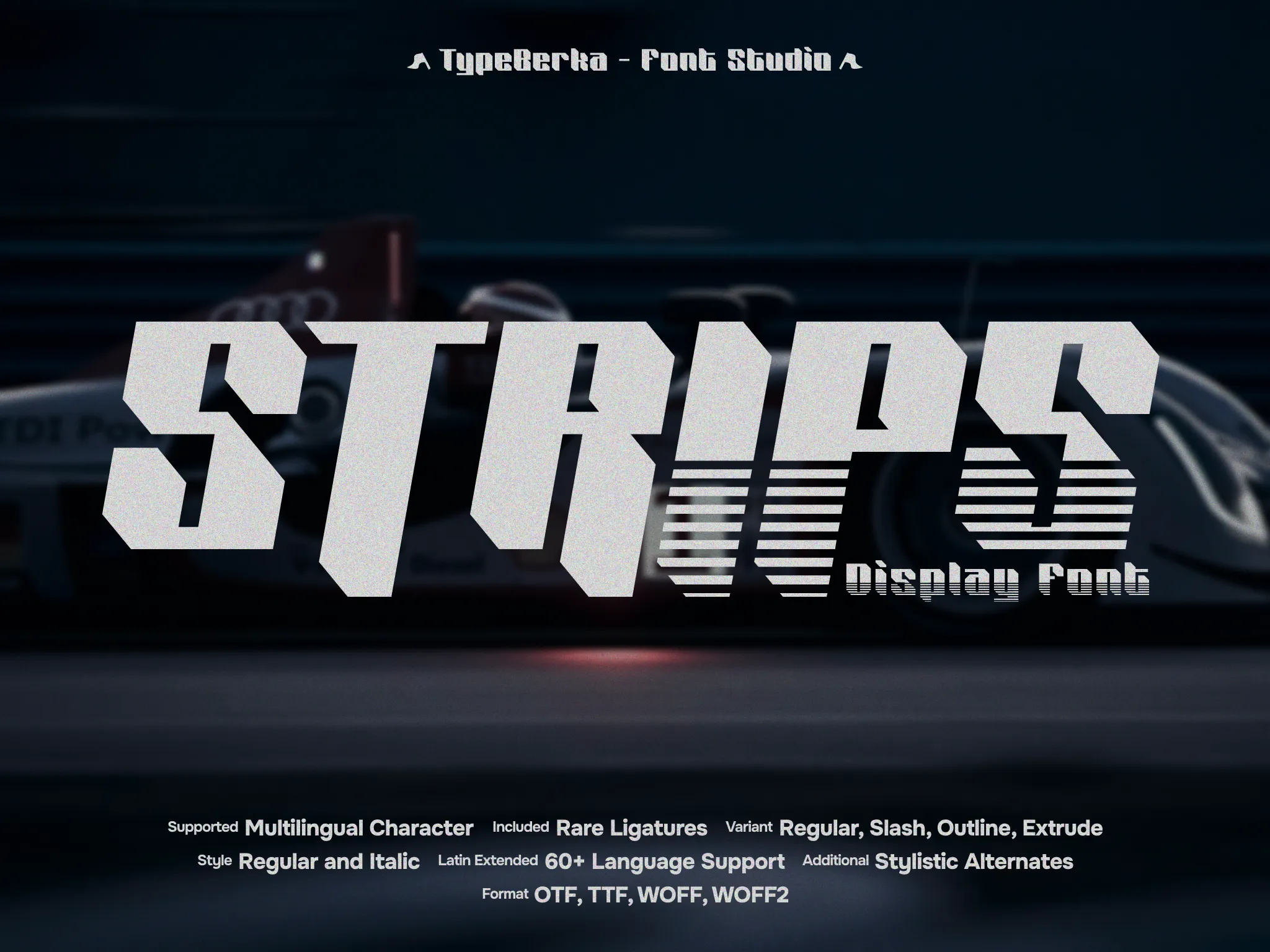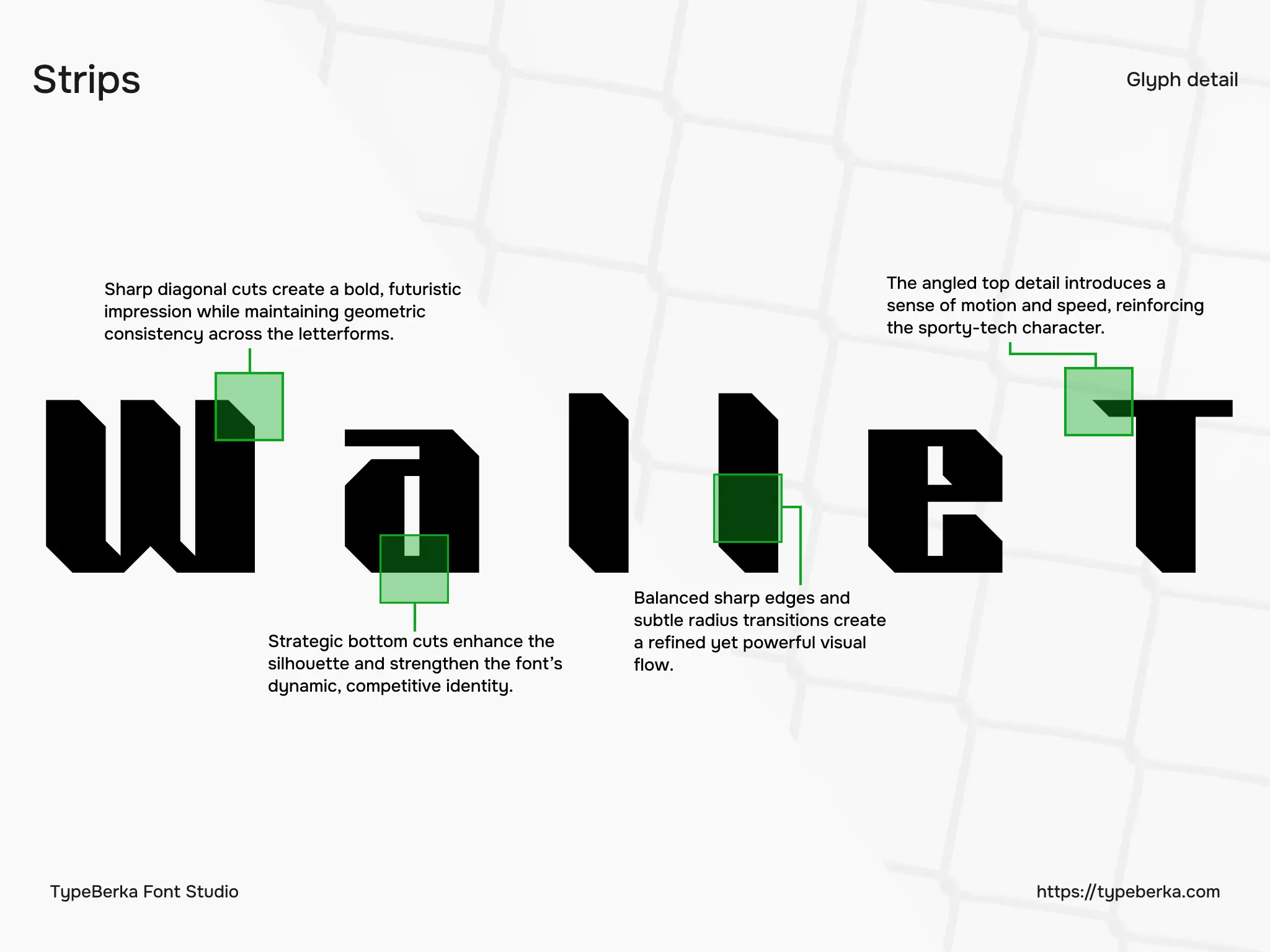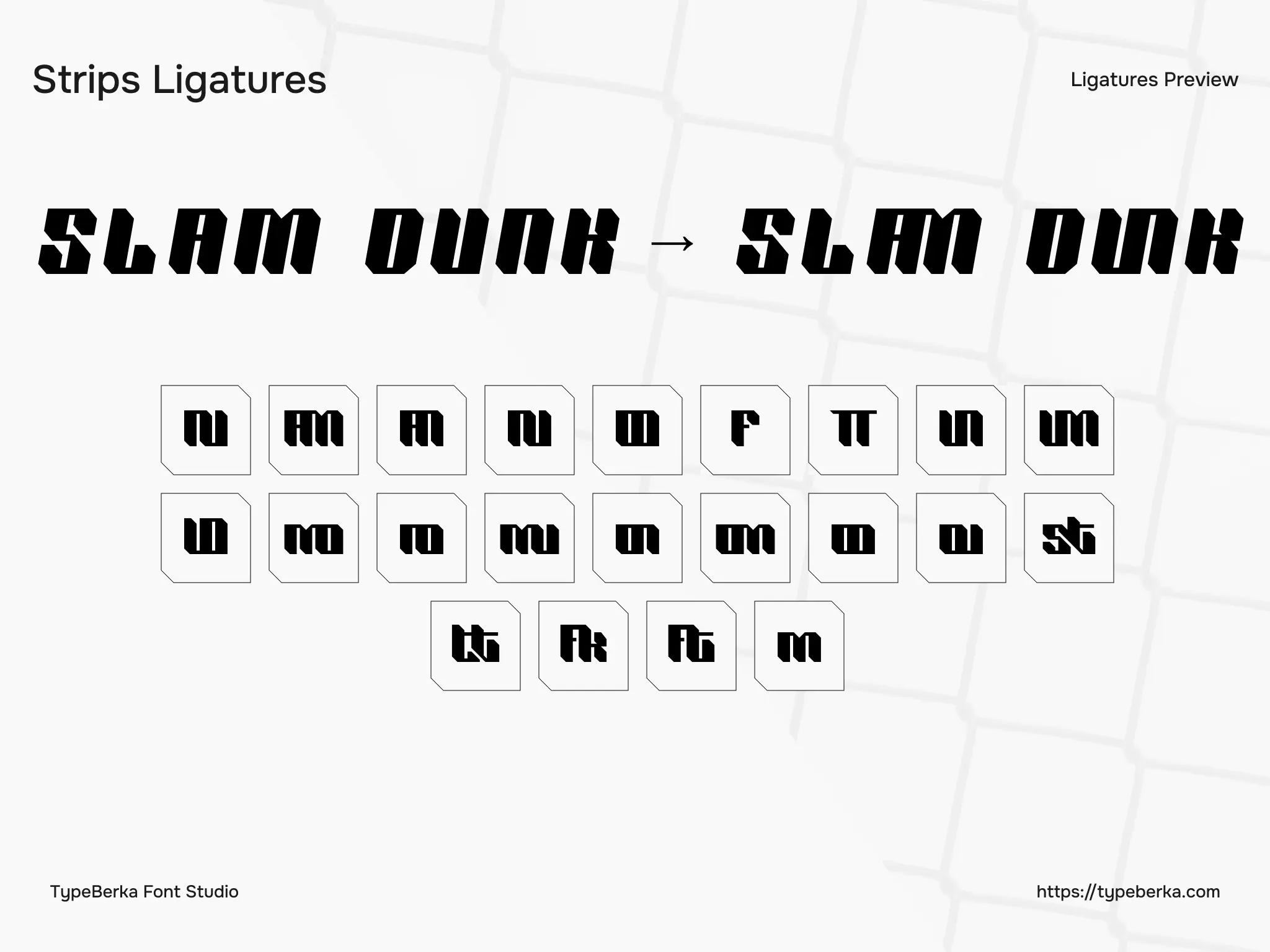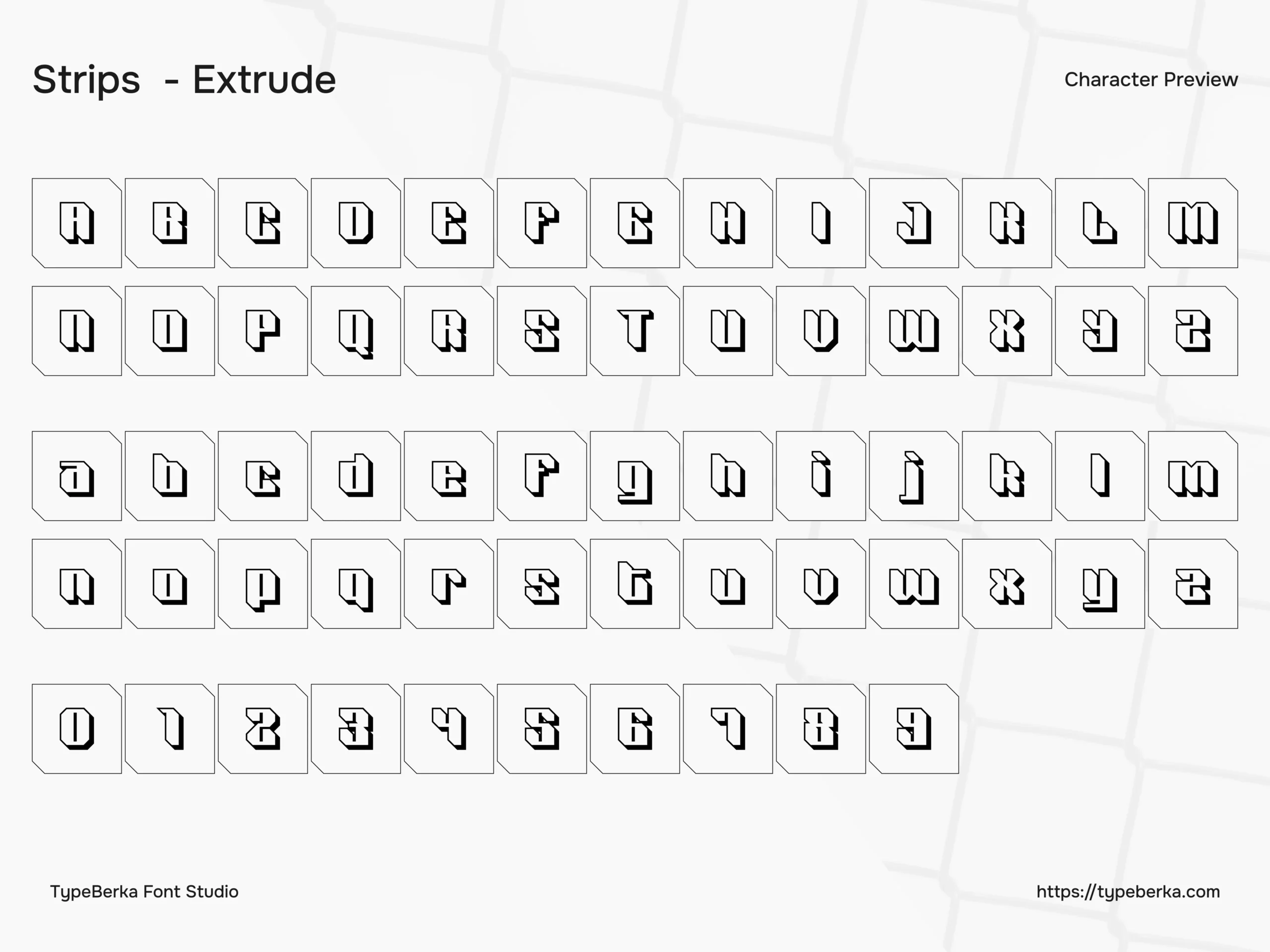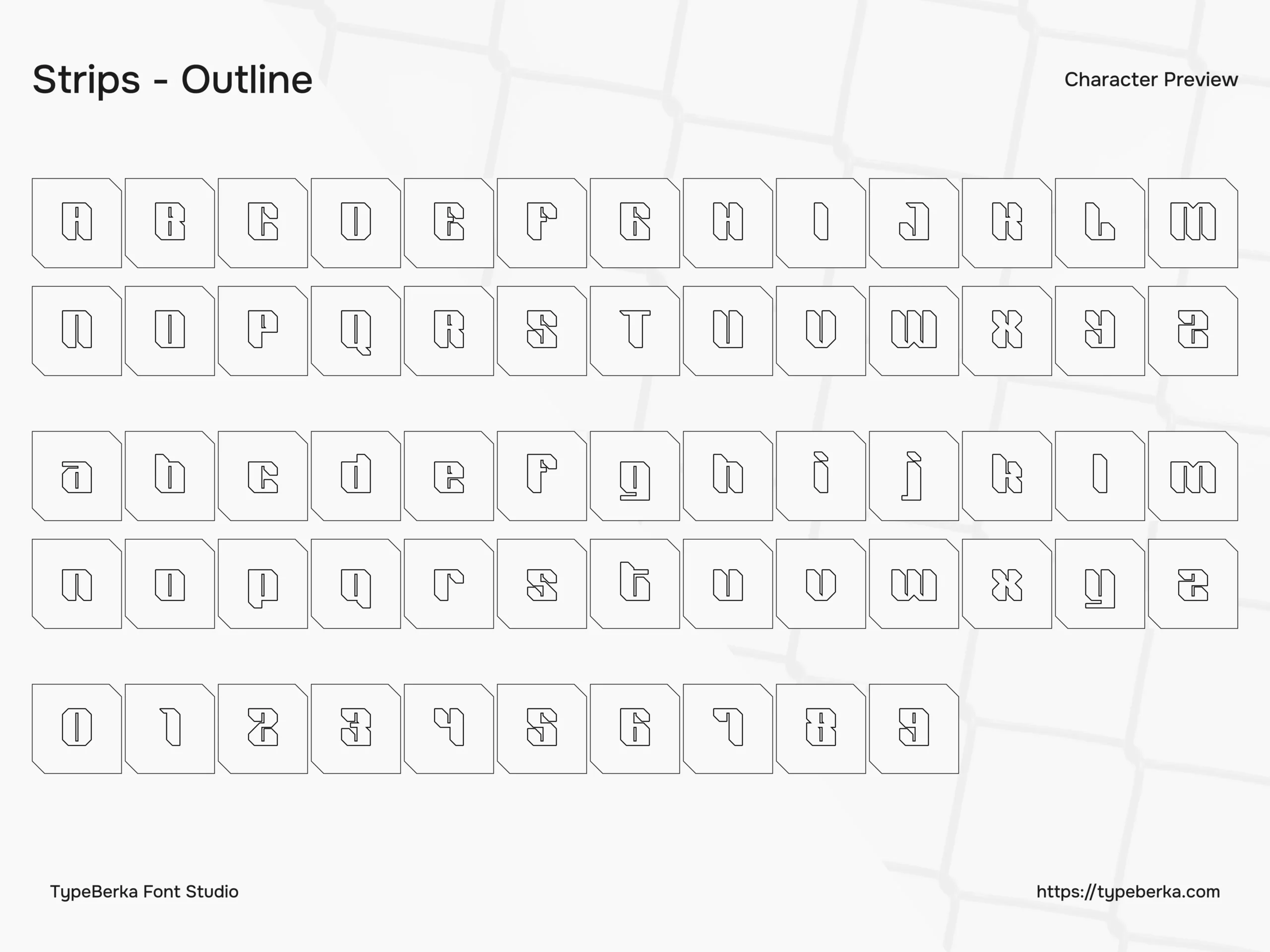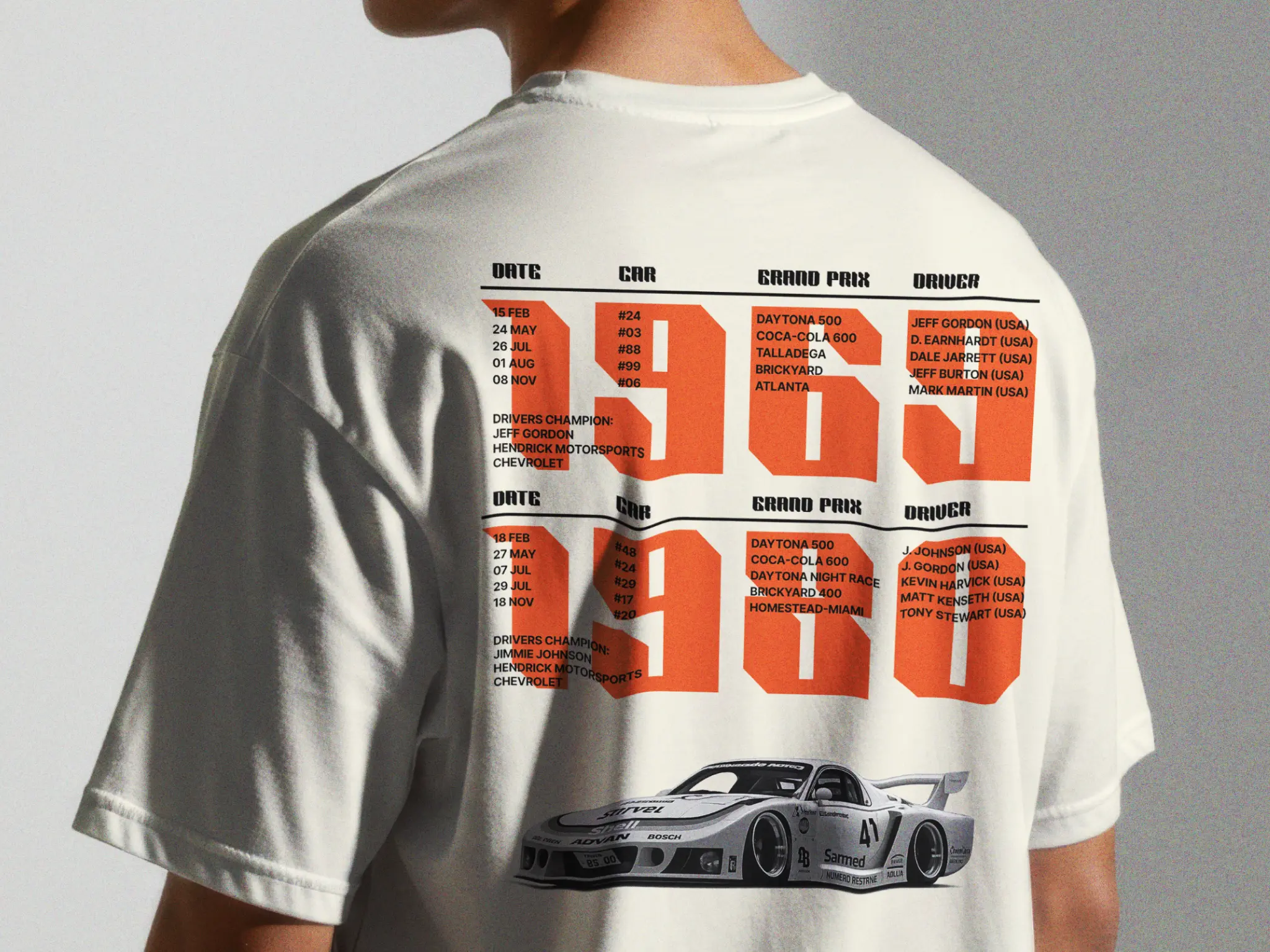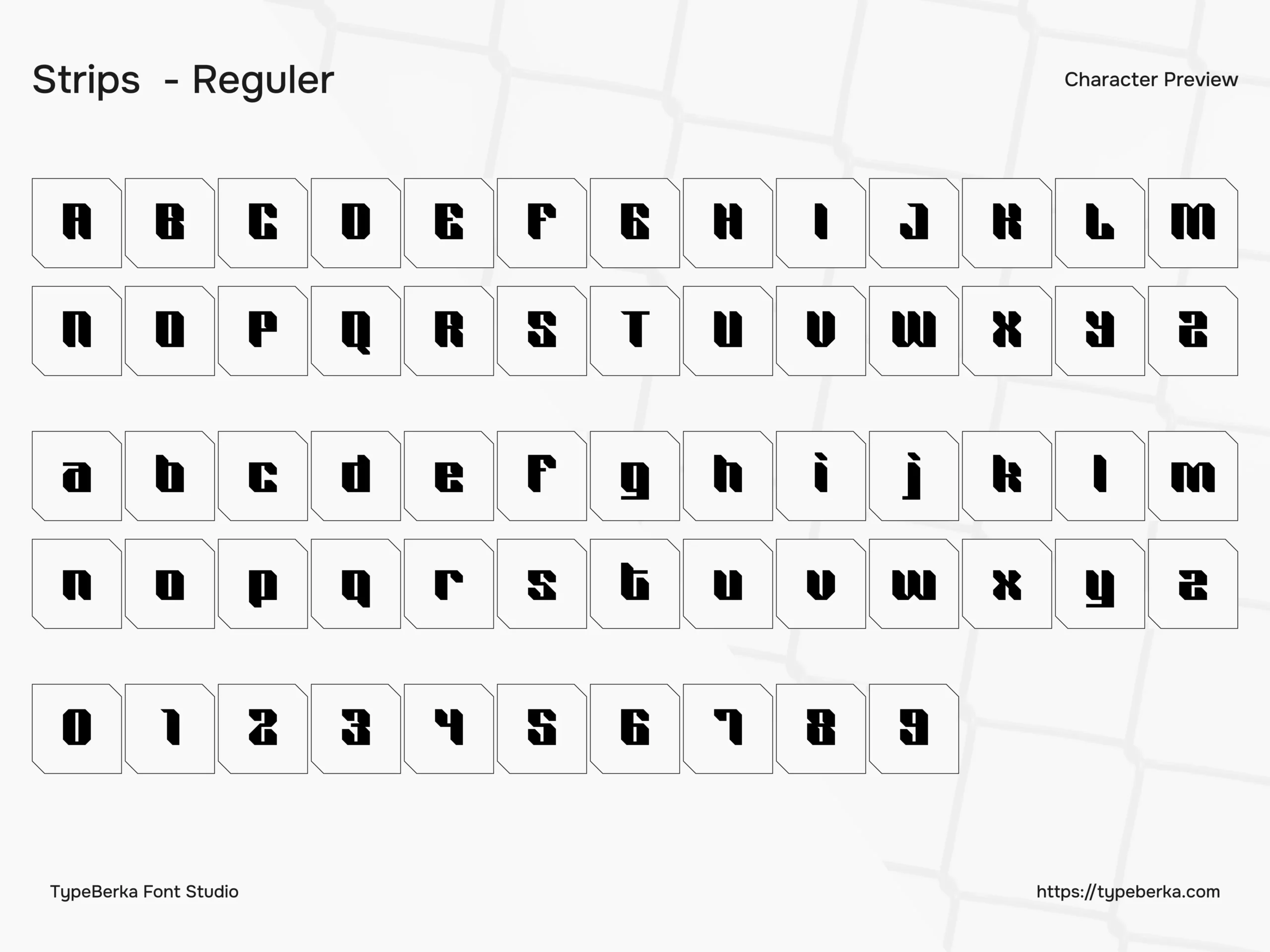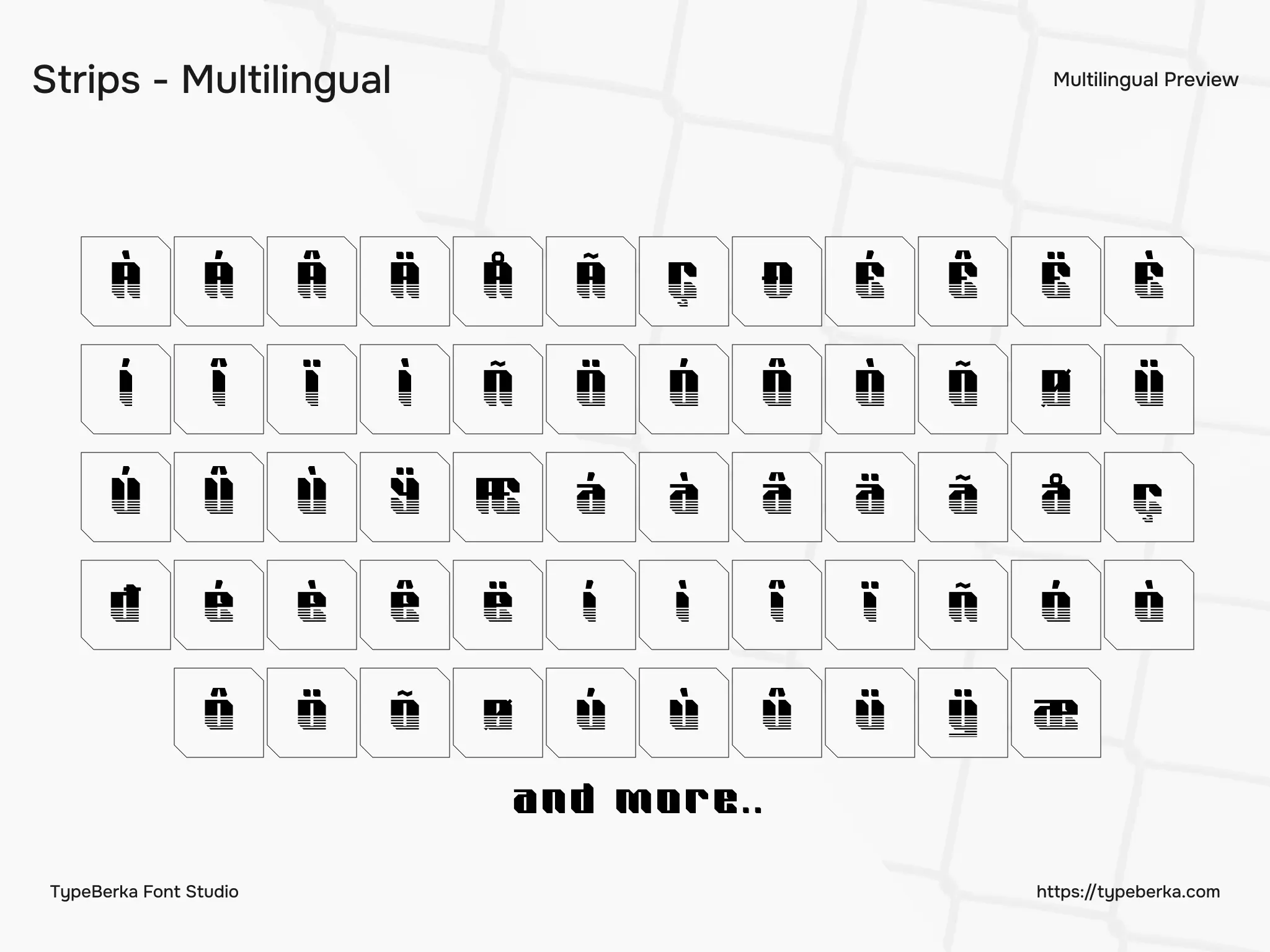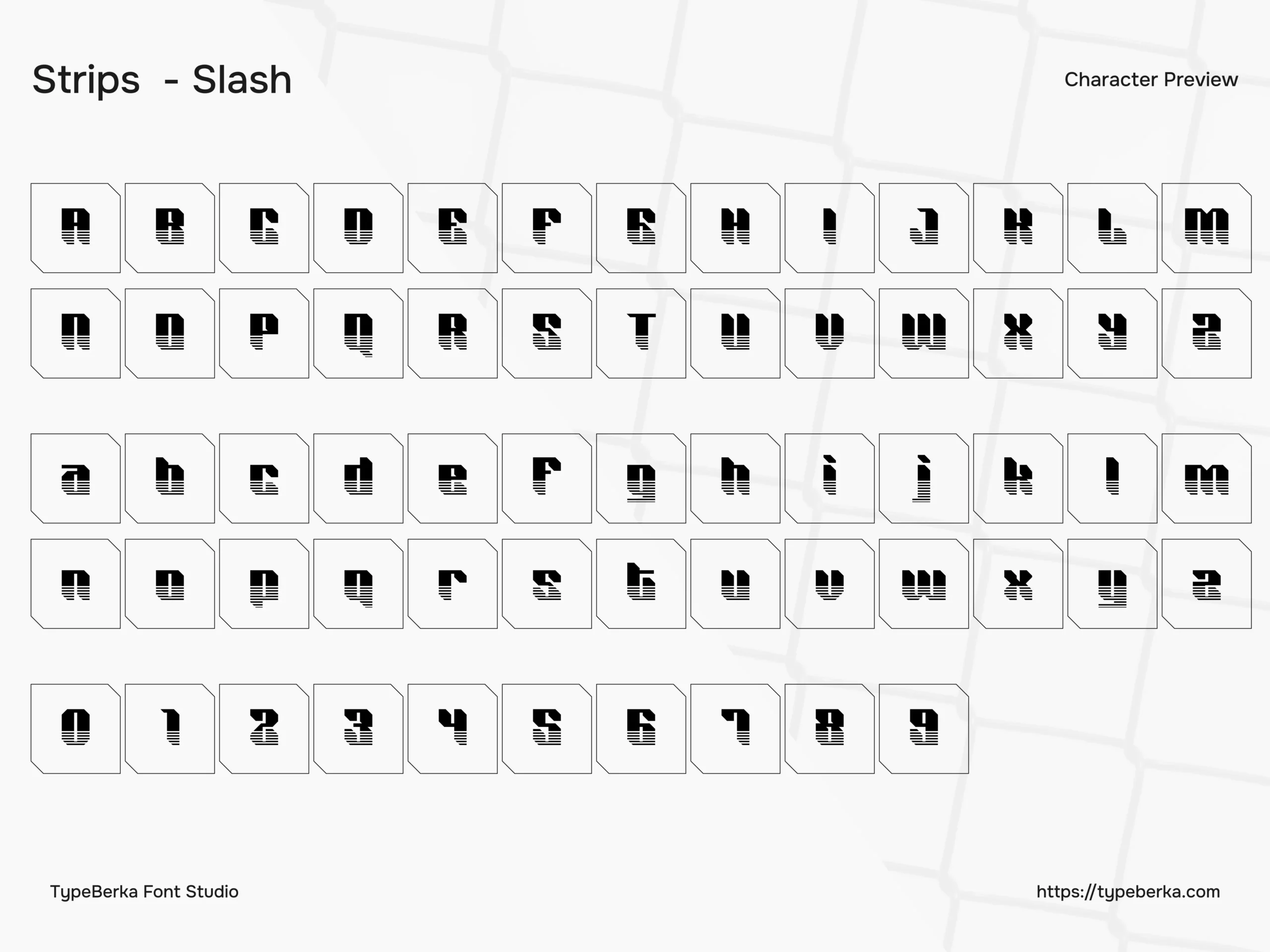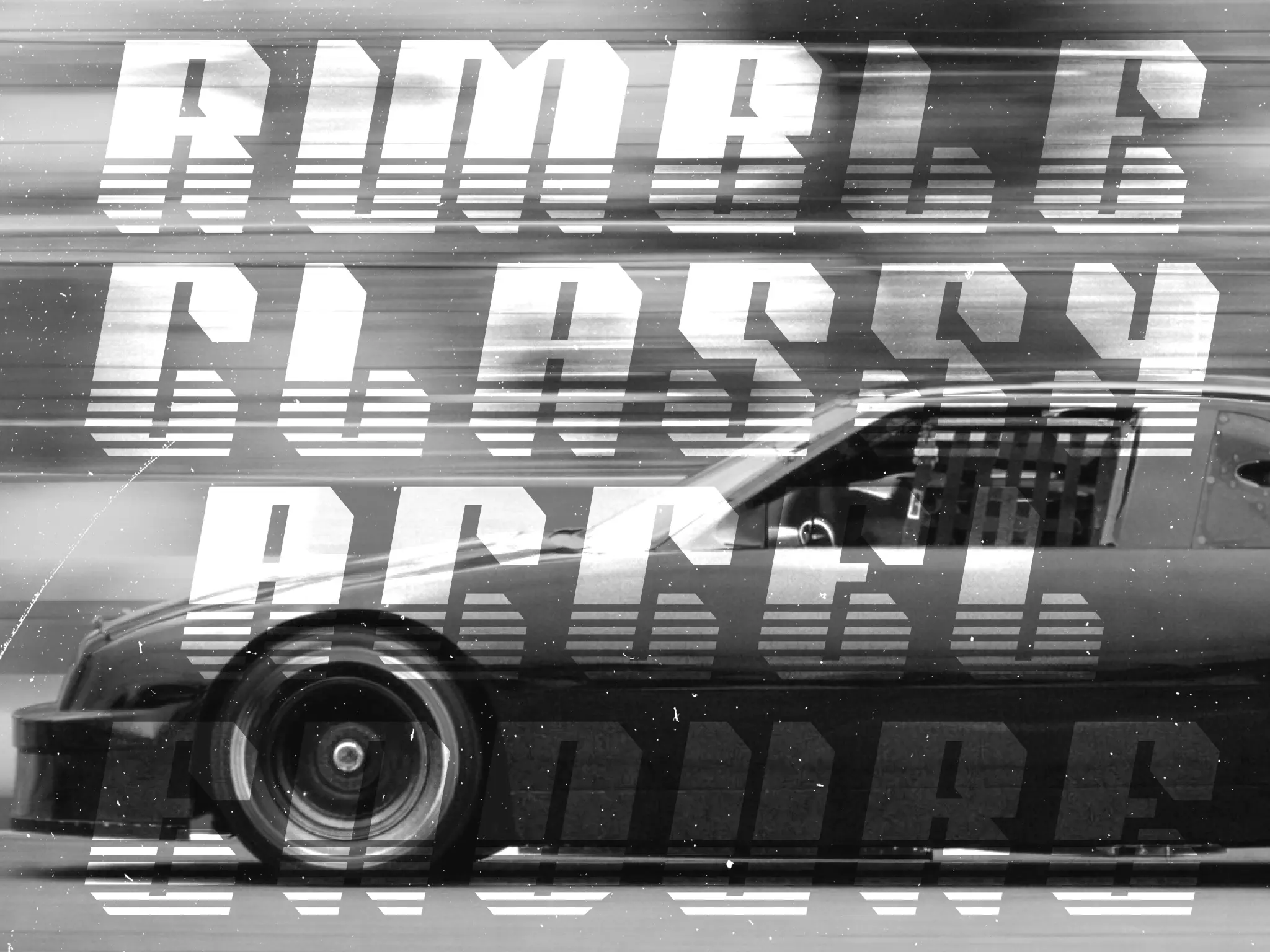
Strips
Strips is a sporty-tech display font built with angular cuts and a signature striped base detail. It stays bold and readable for large headlines, numbers, and competitive layouts.
Strips display font cover by TypeBerka Font Studio featuring a large ‘STRIPS’ wordmark in bold white, with sharp diagonal cuts and horizontal stripe details on a dark, automotive-themed background.
Strips slash style sport display font used in basketball poster headlines POWER and DUNK with bold geometric stripe detail
Font Features
Slash Style
Extrude
Outline
Ligatures
Multilingual
Sporty-tech display type for speed-led branding and numbers
Strips is a sport display font built for motion and structure. It delivers strong visual presence at large sizes. The letterforms combine block geometry with diagonal cuts to create a fast and energetic silhouette.
Design Foundation
The structure uses compact proportions and firm vertical stems. Consistent chamfered corners support the overall geometry.
Diagonal cuts define the rhythm across the alphabet. They also keep spacing predictable in tight compositions.
A striped undercut detail adds a speed-line effect to every glyph. This feature keeps the visual mass strong while adding motion.
Subtle radius transitions soften key joints. As a result, the shapes remain stable even when designers track the font tightly.
Functional Applications
Strips works well in sports branding and motorsport graphics. It also fits race posters, event promotions, and scoreboard layouts.
The Outline and Extrude styles help designers build layered graphics. They work well for apparel prints, editorial covers, and social media visuals.
The Slash style adds extra motion. Designers often use it for action-driven headlines.
Technical Strength
The Strips family includes four styles: Regular, Outline, Extrude, and Slash. Designers can build both solid and effect-driven layouts without changing typefaces.
The font includes ligatures that improve specific letter combinations. These ligatures help headlines and wordmarks look cleaner and more intentional.
Strips supports multilingual Latin characters, including Latin Extended. This support helps designers create campaigns across multiple regions.
The construction remains consistent across uppercase, lowercase, and numerals. The font keeps the same visual logic in numbers, team names, and full poster titles.